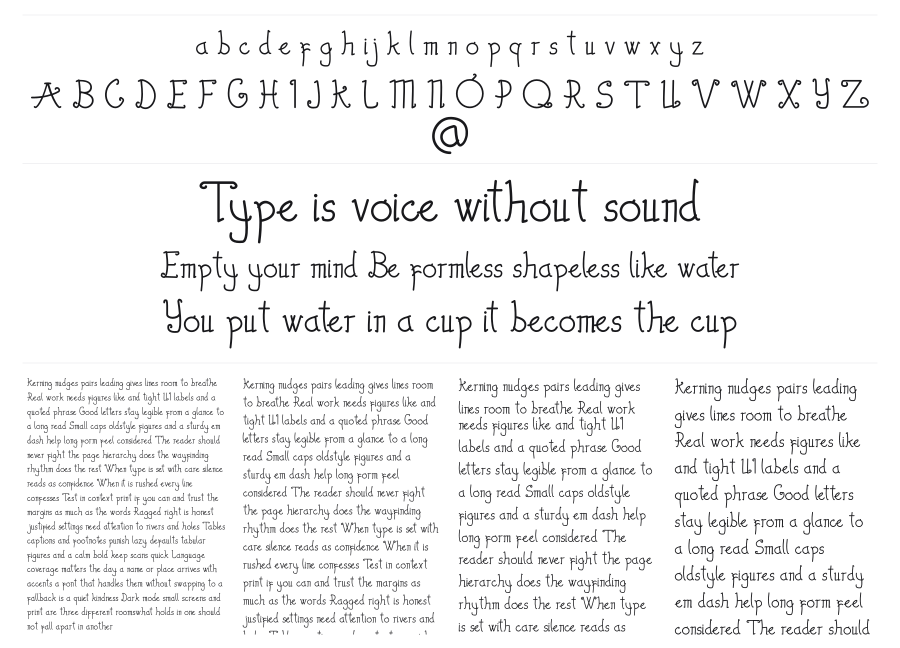
The Wambires
The Wambires is a thin, curly handwritten face from Perdana Kurniawan Arta with a playful, slightly eccentric personality. The lightweight strokes loop and wander with a whimsical energy that feels spontaneous rather than structured, giving each word a quirky, hand-lettered charm. Best for headlines, invitations, and decorative uses where you want something lighthearted and a little offbeat.